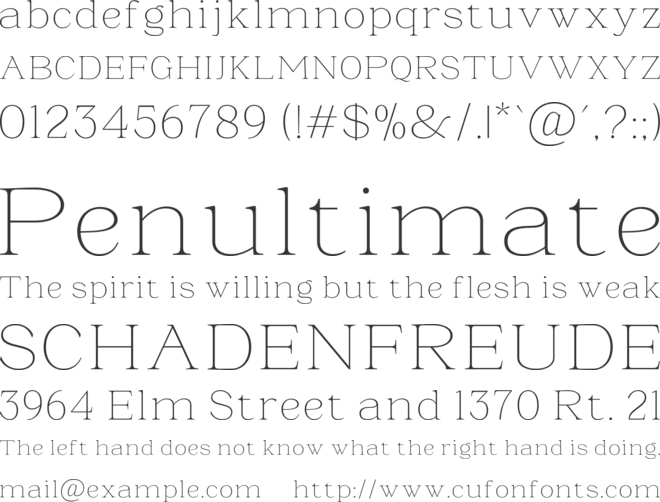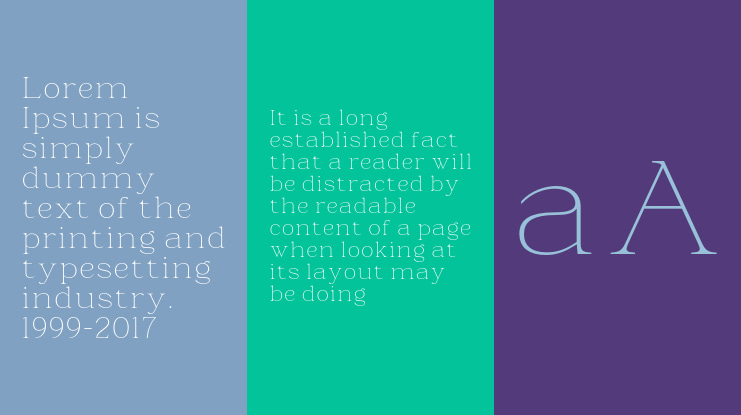
La Rochelle Font Family
La Rochelle is a refined variable serif typeface that blends classical elegance with modern adaptability. Designed with four dynamic axes—Weight, Width, Slant, and Italic—it offers a wide expressive range, from delicate light styles to bold, condensed, and dramatically slanted forms. This flexibility makes La Rochelle a powerful tool for designers working across editorial, branding, and digital platforms, allowing for seamless typographic modulation without sacrificing visual harmony.